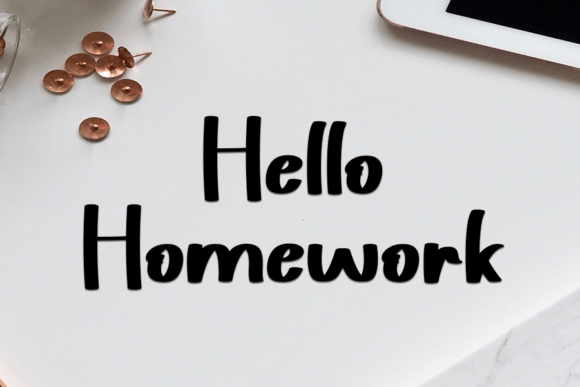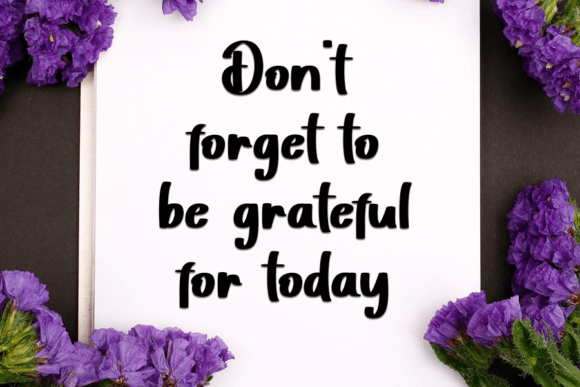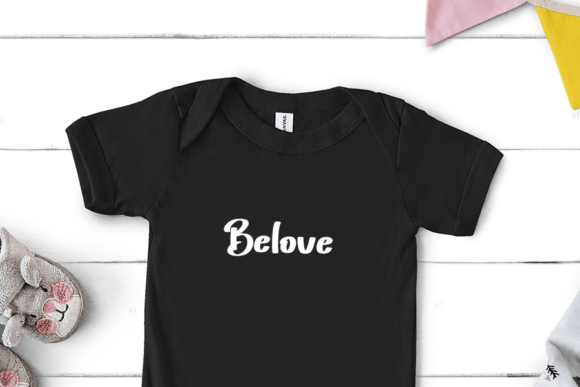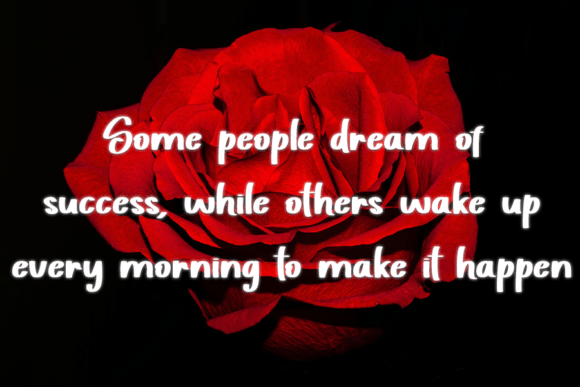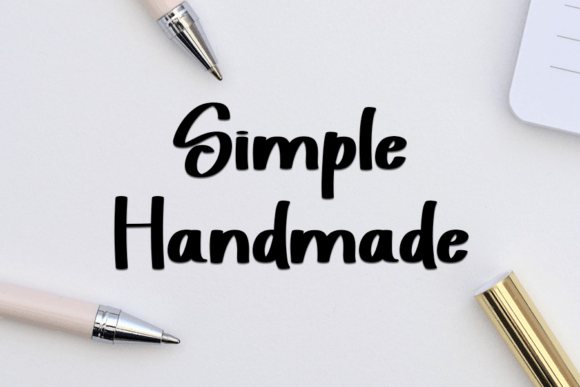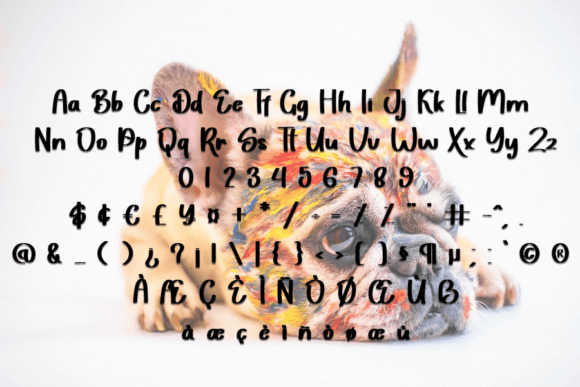
Bulldog Font: Elevate Your Designs with a Modern Handwritten Style
In the world of typography, fonts play a crucial role in conveying the tone and personality of a design. For designers and crafters looking for a unique and modern handwritten font, Bulldog Font is an excellent choice. Inspired by classic calligraphy, Bulldog Font brings a fresh and spotless form to the table, making it perfect for a wide range of projects.
What is Bulldog Font?
Bulldog Font is a cool handwritten font with a modern vibe, designed to enhance the beauty of all your projects. Its balanced and varied style makes it an ideal choice for designers and crafters who want to add a personal touch to their work. Whether you’re creating posters, invitations, or any other craft project, Bulldog Font is the perfect companion.
Key Features of Bulldog Font
• Modern Handwritten Style: Bulldog Font boasts a modern handwritten style that is both fresh and elegant.
• Inspired by Classic Calligraphy: The font’s design is inspired by classic calligraphy, giving it a timeless and sophisticated feel.
• Balanced and Varied: The font’s balanced and varied style makes it perfect for a wide range of projects, from posters to invitations.
• Spotless Form: Bulldog Font features a spotless form that ensures clarity and readability, even at small sizes.
Uses of Bulldog Font
Bulldog Font is a versatile font that can be used for a variety of projects, including:
• Posters: Create eye-catching posters with Bulldog Font that are sure to grab attention.
• Invitations: Add a personal touch to your invitations with Bulldog Font’s elegant and modern style.
• Craft Projects: Whether you’re creating handmade cards, scrapbook pages, or other craft projects, Bulldog Font is the perfect choice.
• Digital Designs: Use Bulldog Font in your digital designs, such as social media graphics, blog posts, and more.
Why Choose Bulldog Font?
With so many fonts available, why choose Bulldog Font? Here are just a few reasons:
• Unique Style: Bulldog Font offers a unique and modern handwritten style that sets it apart from other fonts.
• Ease of Use: The font is easy to read and works well in a variety of contexts, making it a versatile choice.
• High-Quality Design: Bulldog Font is designed with high-quality craftsmanship in mind, ensuring that your projects look professional and polished.
Tips for Using Bulldog Font
Here are a few tips for getting the most out of Bulldog Font:
• Experiment with Sizes: Bulldog Font works well at a variety of sizes, so don’t be afraid to experiment to find the perfect fit for your project.
• Pair with Other Fonts: Try pairing Bulldog Font with other fonts to create a unique and visually appealing combination.
• Use for Headings and Body Text: Bulldog Font works well for both headings and body text, making it a great choice for a wide range of projects.
In conclusion, Bulldog Font is a modern handwritten font with a classic vibe that is perfect for designers and crafters looking to elevate their designs. With its balanced and varied style, spotless form, and high-quality design, Bulldog Font is sure to become a go-to choice for a wide range of projects. Whether you’re creating posters, invitations, or digital designs, Bulldog Font is the perfect companion.